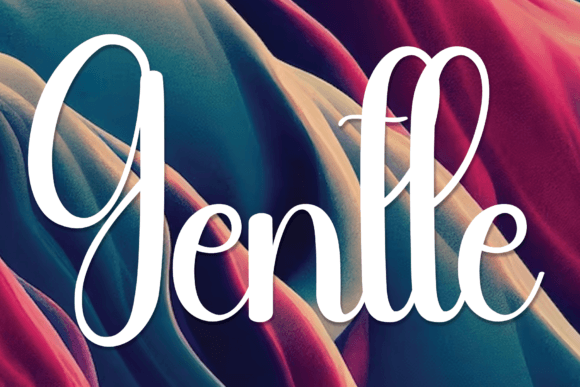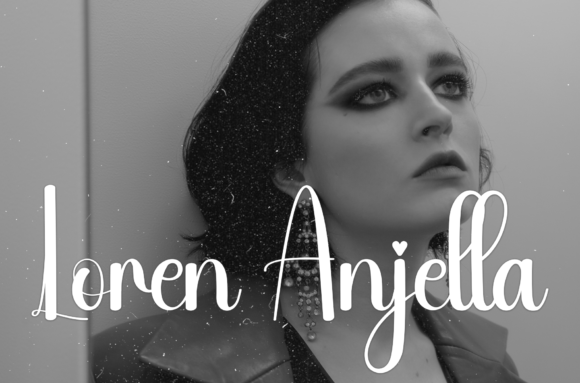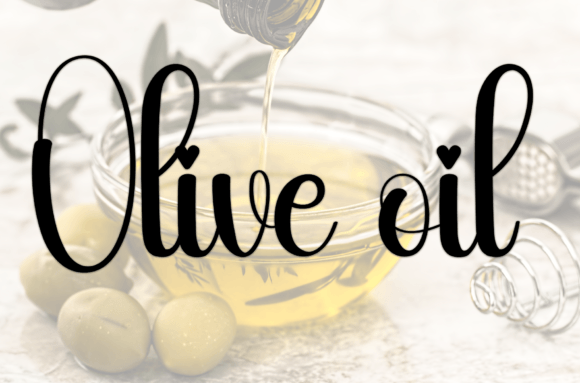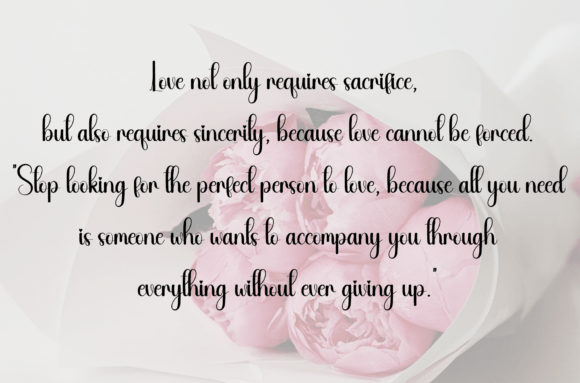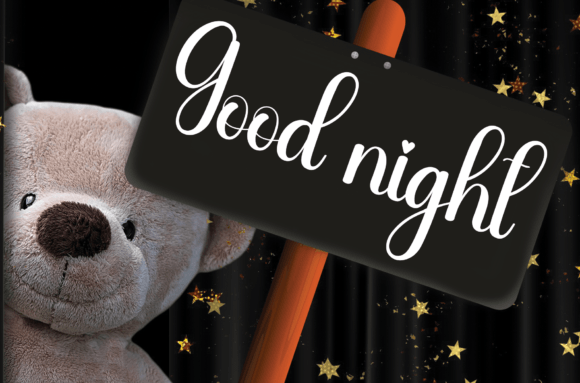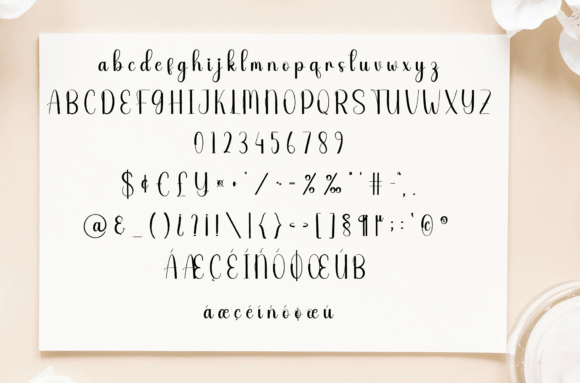
Gentle
About Gentle
Gentle is a sweet handwritten font. Friendly and cute, this font is ideal for writing wedding invitations, cards, or any other design that might need a fun touch!